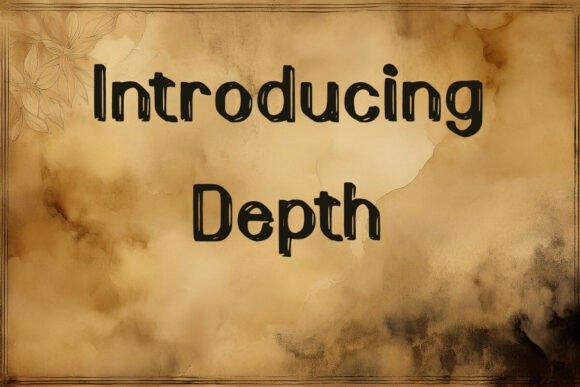
Depth Font: Unlocking Creative Possibilities
In the world of typography, a font can make all the difference in conveying a message, expressing a brand’s identity, or adding a touch of personality to a design. Meet the Depth font, a game-changing typeface that’s making waves in the design community. With its distinctive and versatile style, Depth is the perfect companion for designers, crafters, and DIY enthusiasts looking to elevate their creative projects.
What is Depth Font?
Depth is more than just a font – it’s a visual statement. This unique typeface is designed to bring a dynamic edge to your designs, making it perfect for a wide range of mediums, from bold branding to everyday crafting. Whether you’re creating t-shirts, stickers, social media posts, greeting cards, posters, or magazine spreads, Depth adds a touch of sophistication and playfulness that’s sure to grab attention.
Key Features of Depth Font
- Distinctive Style: Depth boasts a one-of-a-kind design that’s both modern and whimsical, making it perfect for projects that require a bit of personality.
- Versatility: This font is incredibly versatile, suitable for a wide range of projects, from digital designs to print materials.
- Playful Sophistication: This font adds a touch of playfulness to any design, making it perfect for projects that require a bit of whimsy.
Use Cases for Depth Font
So, what can you create with the Depth font? The possibilities are endless! Here are a few ideas to get you started:
- T-Shirts and Apparel: Add a dynamic edge to your t-shirt designs with Depth, making them stand out from the crowd.
- Stickers and Labels: Create eye-catching stickers and labels with Depth, perfect for branding, packaging, or decoration.
- Social Media Posts: Elevate your social media game with Depth, adding a touch of personality to your posts and stories.
- Greeting Cards and Invitations: Add a whimsical flair to your greeting cards and invitations with Depth, making them truly special.
- Poster Layouts and Magazine Spreads: Enhance your poster layouts and magazine spreads with Depth, adding a touch of sophistication and playfulness.
- SVG Projects: Depth is perfect for SVG projects, adding a dynamic edge to your designs and making them stand out.
Why Choose Depth Font?
With so many fonts available, why choose Depth? Here are just a few reasons why designers and crafters are falling in love with this unique typeface:
- Unique Style: Depth offers a fresh and distinctive style that’s sure to set your designs apart.
In conclusion, the Depth font is a game-changer for designers and crafters looking to elevate their creative projects. With its distinctive style, versatility, and compatibility with popular design software and cutting machines, Depth is the perfect companion for anyone looking to add a dynamic edge to their designs. Whether you’re creating bold branding, everyday crafting, or anything in between, Depth is sure to make waves and bring your unique style to life.